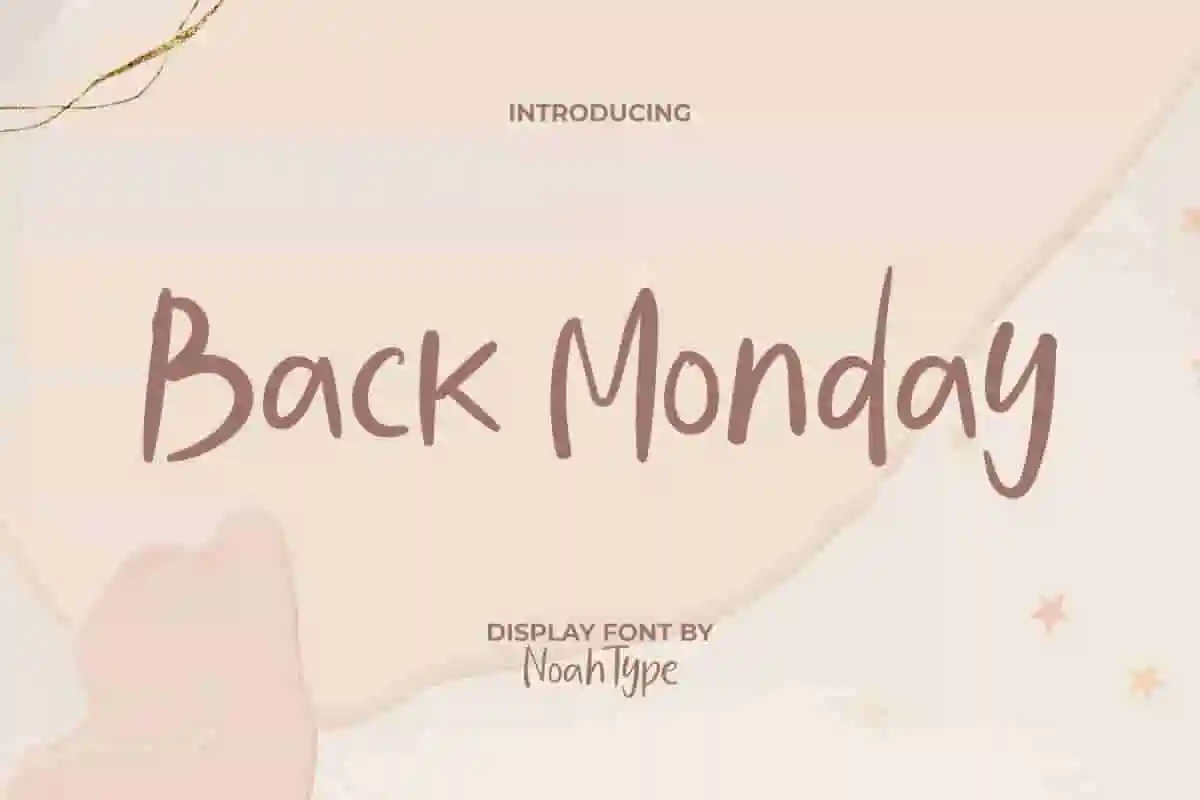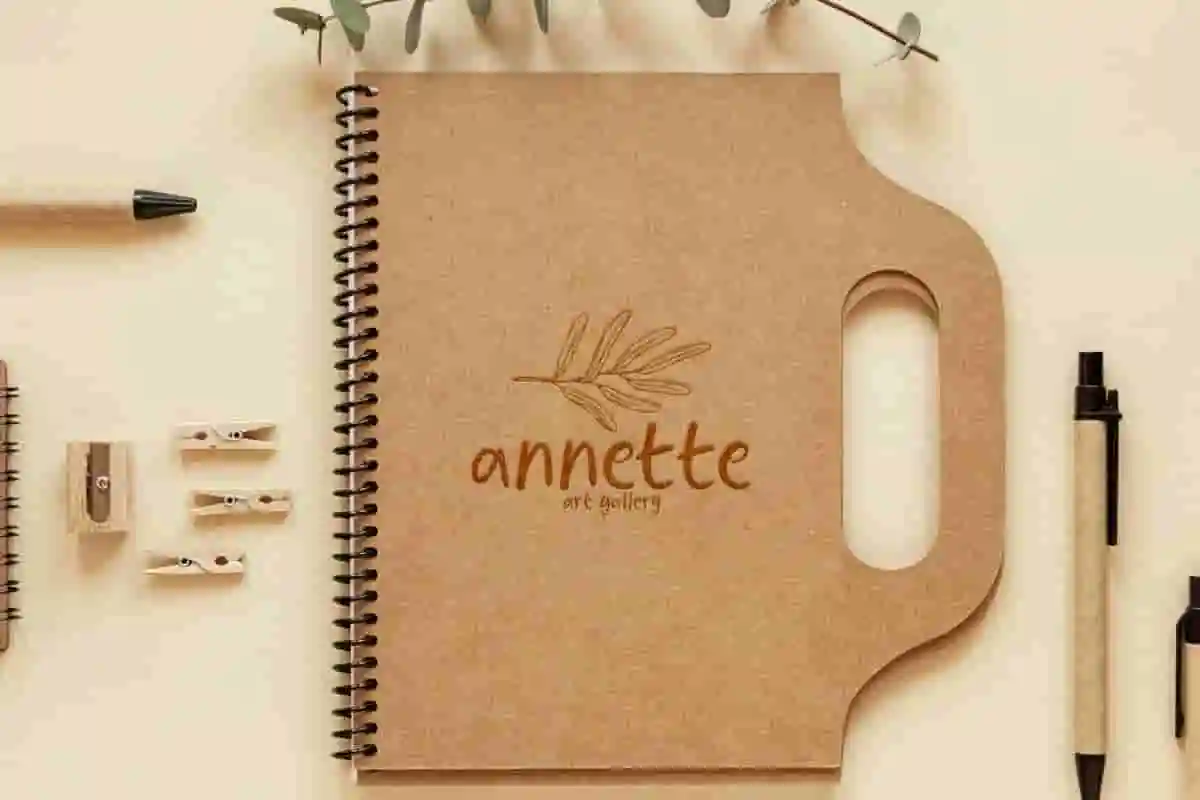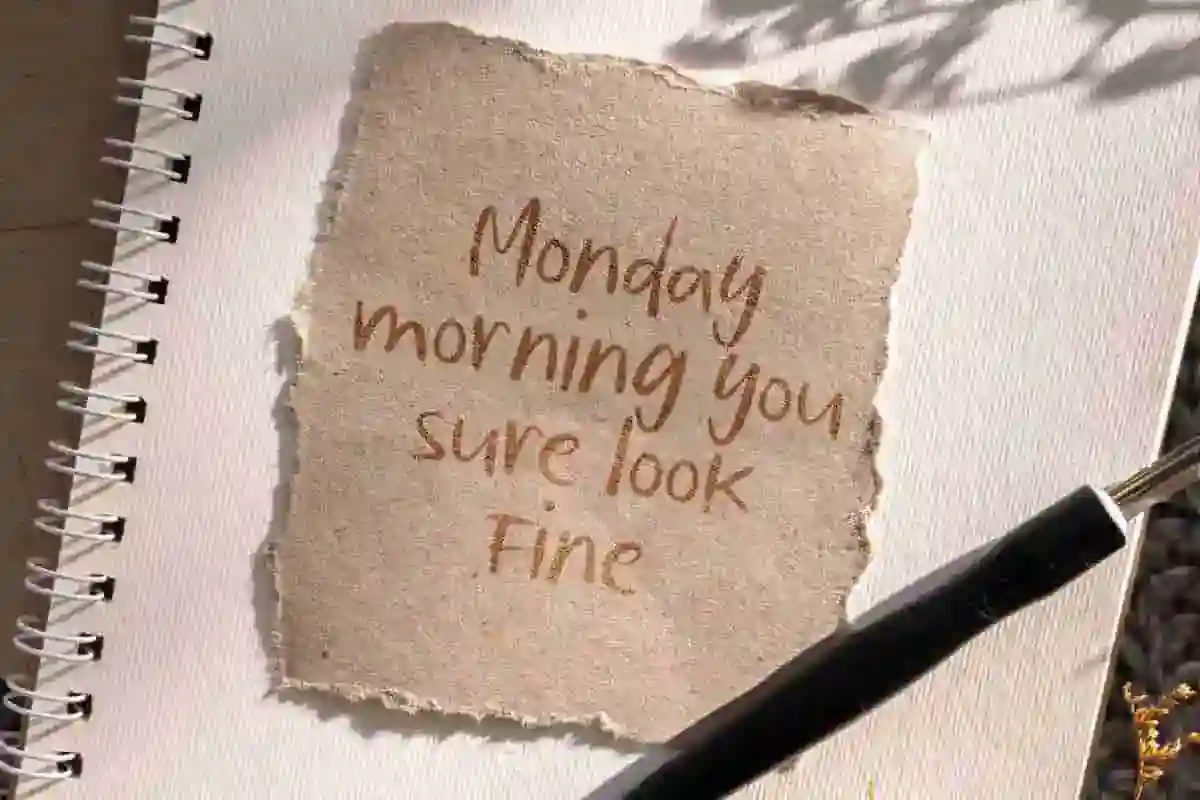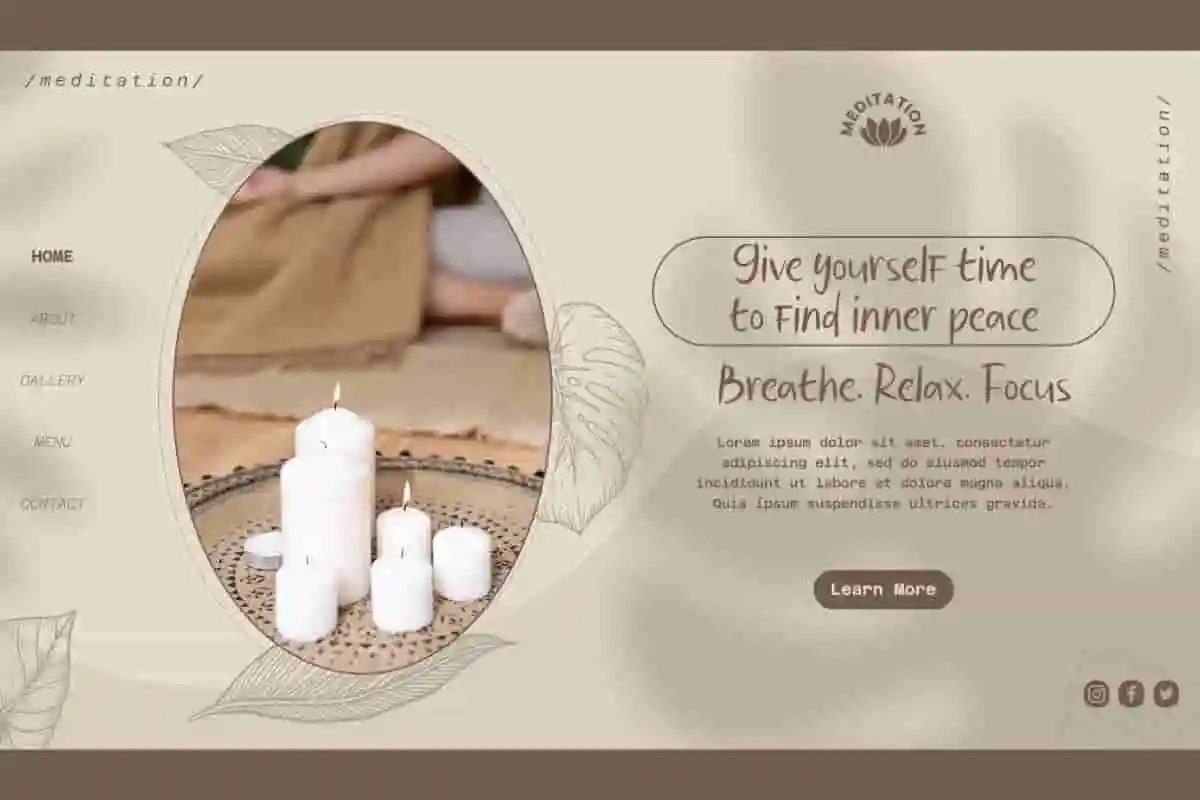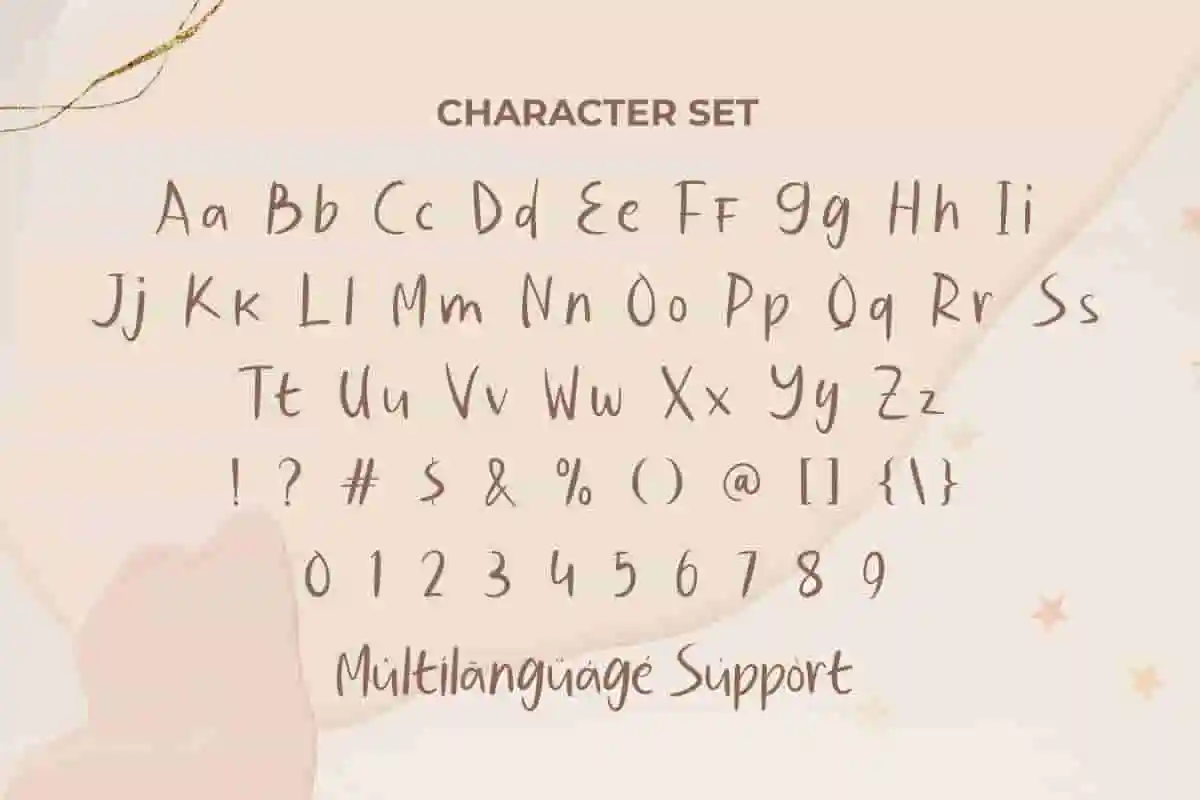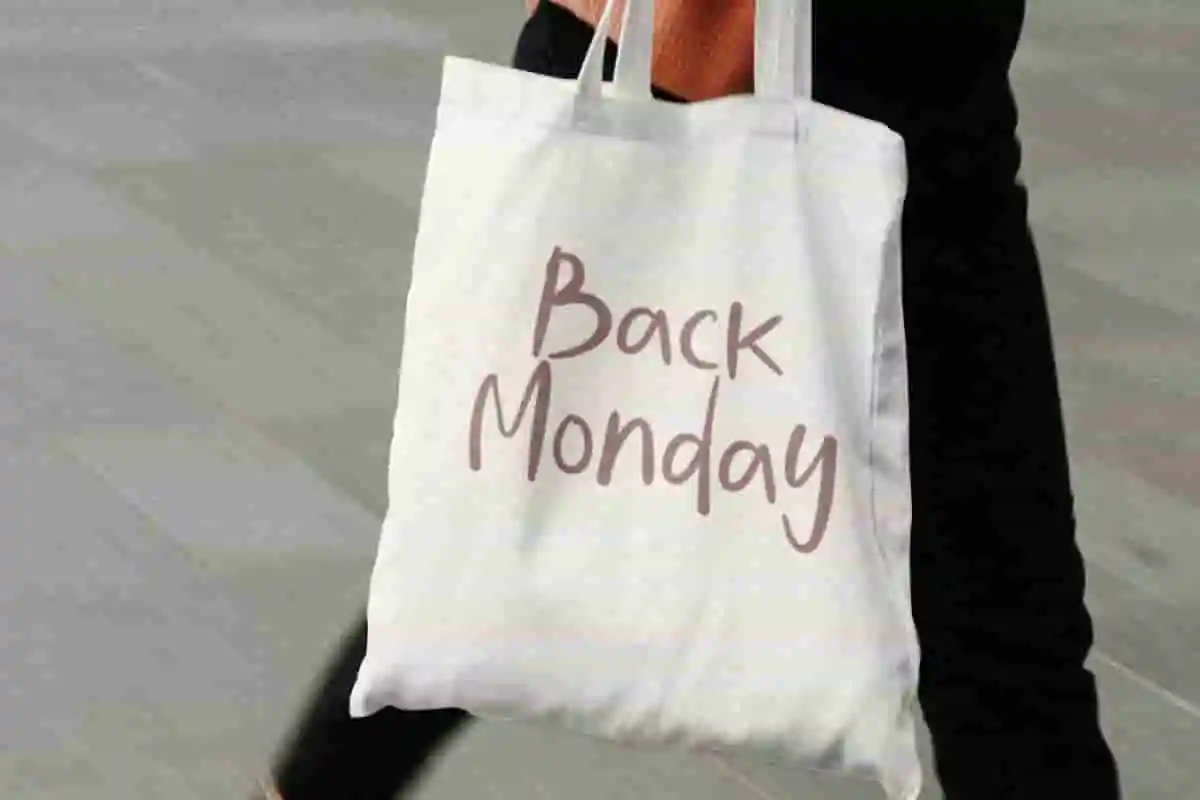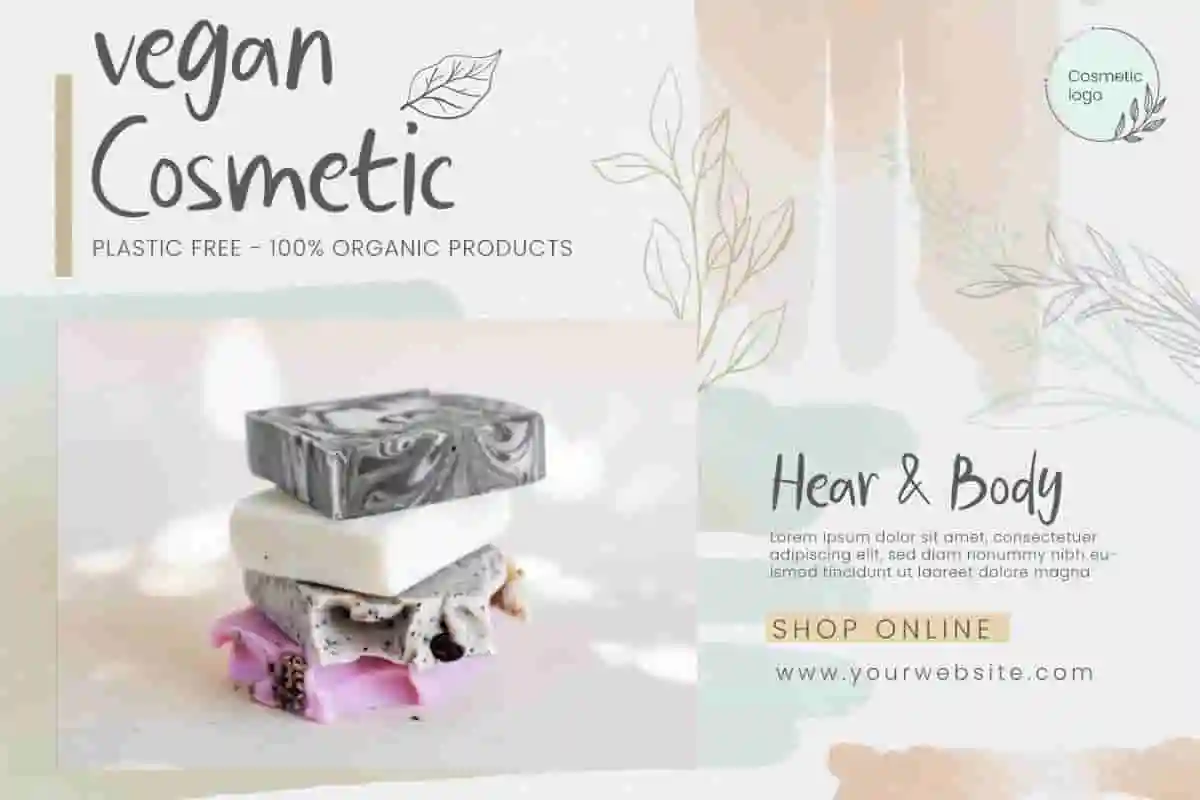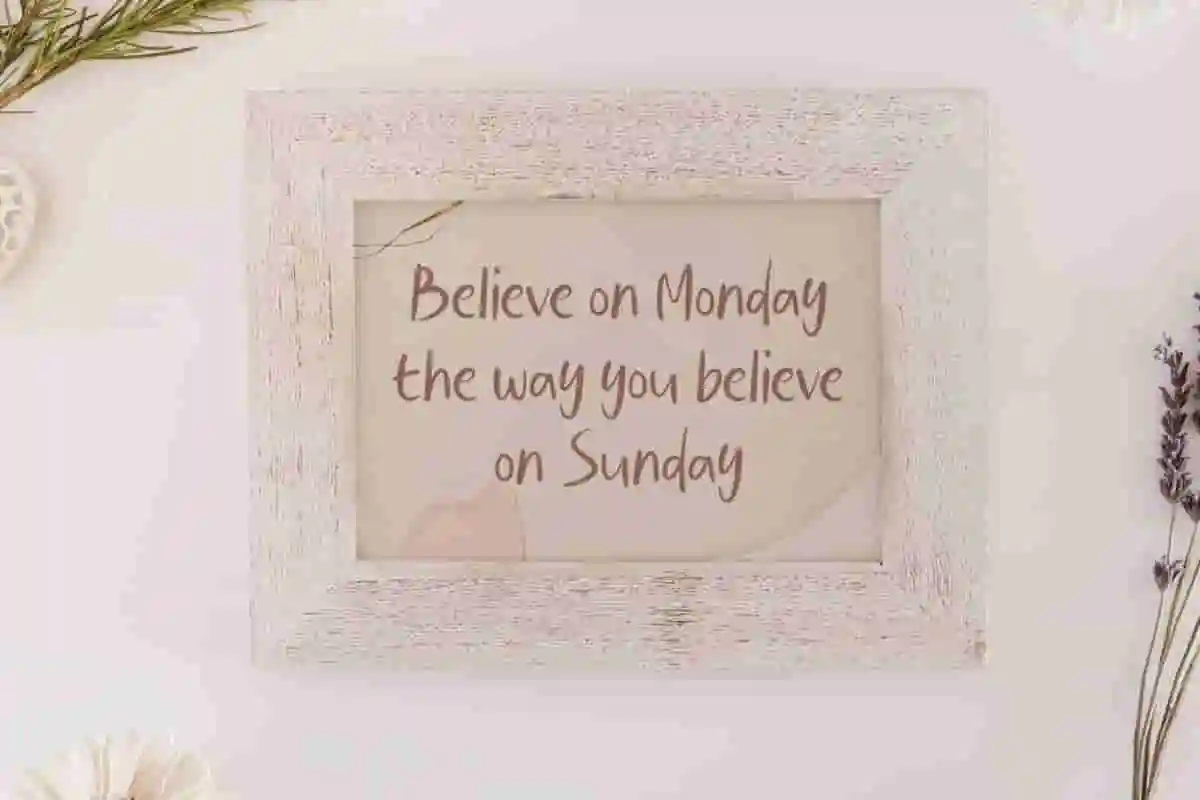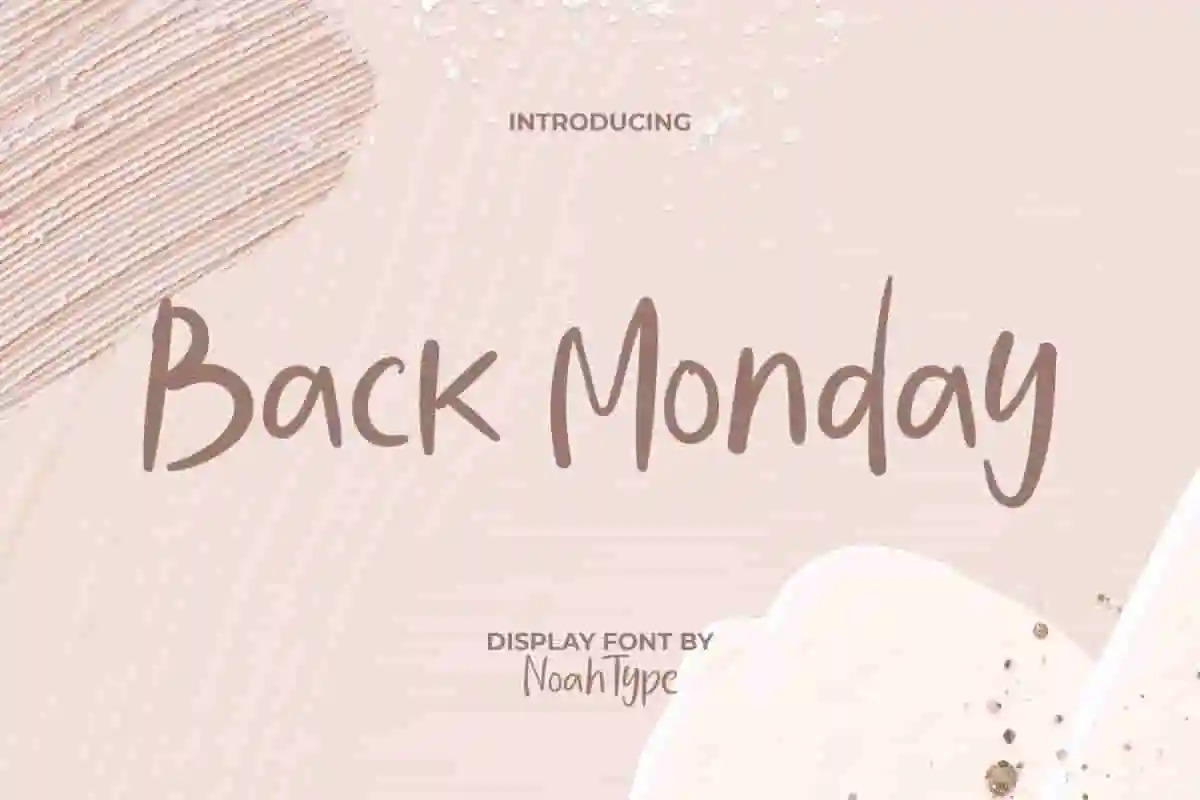
Back Monday Font is a chic handwriting display font with casual girly vibes. This simple font looks like it was created using a small thin brush neatly. It will be perfect for any designs, such as brand image, cover, custom design, invitation, label, marketing material, menu, poster, product packaging, quote, stationery, web, and many more!
Back Monday Font includes full set of Uppercase and Lowercase Basic Characters, Numerals, Punctuation, and Symbol. This adorable font will give modern looks and also a perfect choice for many industries, such as accessories, advertising, event or festival, fashion, florist, furniture, game, printing, publishing, etc.